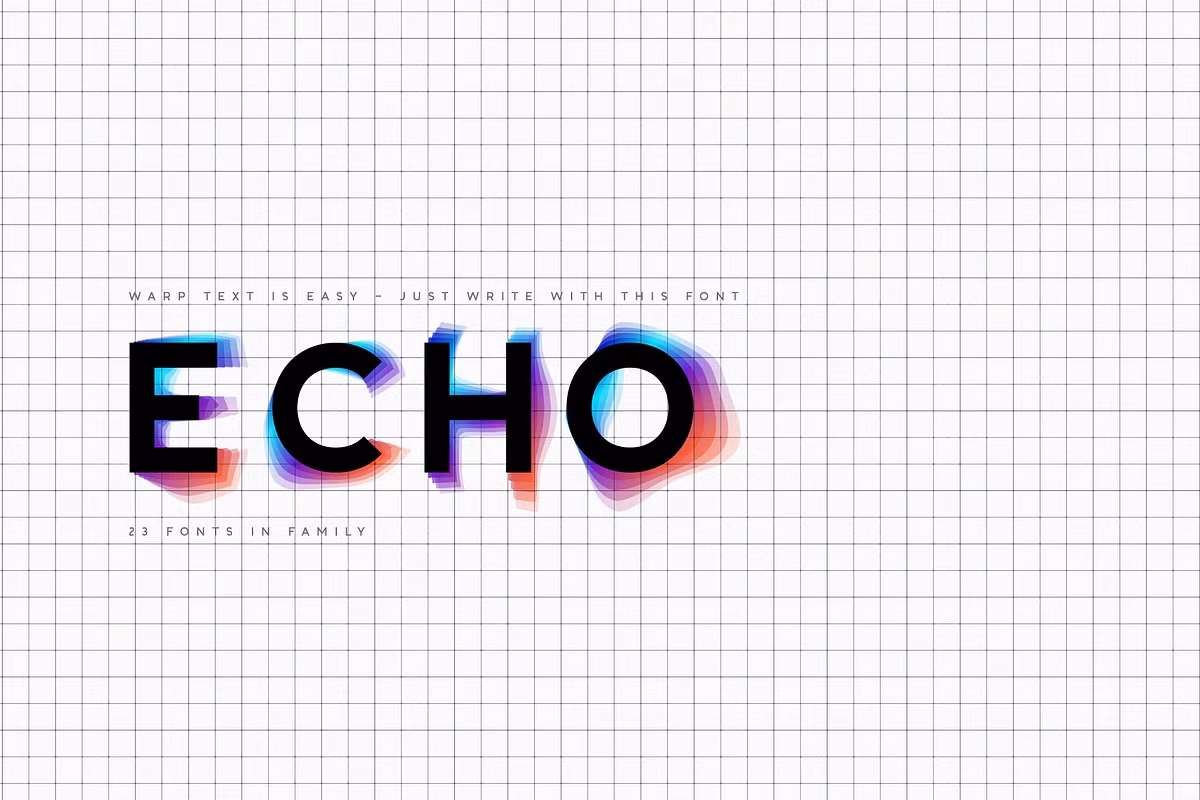
Echowarp. OTF-SVG Family Free Download is a futuristic and visually striking typeface that brings a digital, glitch-inspired aesthetic to your creative projects. With its SVG font technology, Echowarp features high-resolution, textured letterforms that give your text a vibrant, layered, and almost holographic effect. It’s perfect for album covers, tech branding, game design, digital posters, and anything that needs a bold, sci-fi edge.
This font family includes multiple variations, offering flexibility in style while maintaining that edgy, high-tech personality. Whether you're designing for cyberspace, electronic music, or experimental art, Echowarp commands attention with a unique visual impact.
Explore the creative depth of Echowarp. OTF-SVG Family Free Download and add an electrifying vibe to your next project. Keep in mind that a commercial license is necessary for any use beyond personal or test purposes.